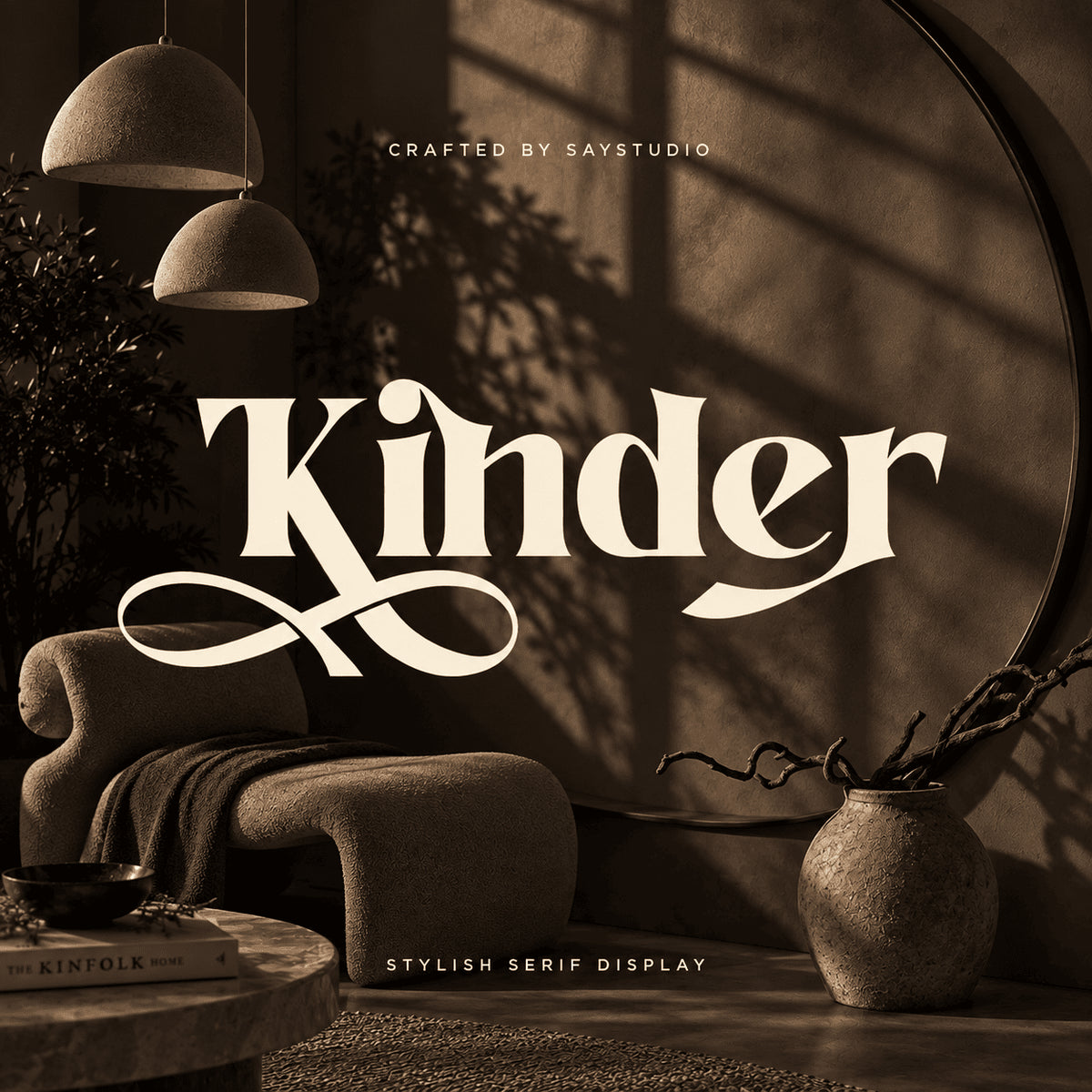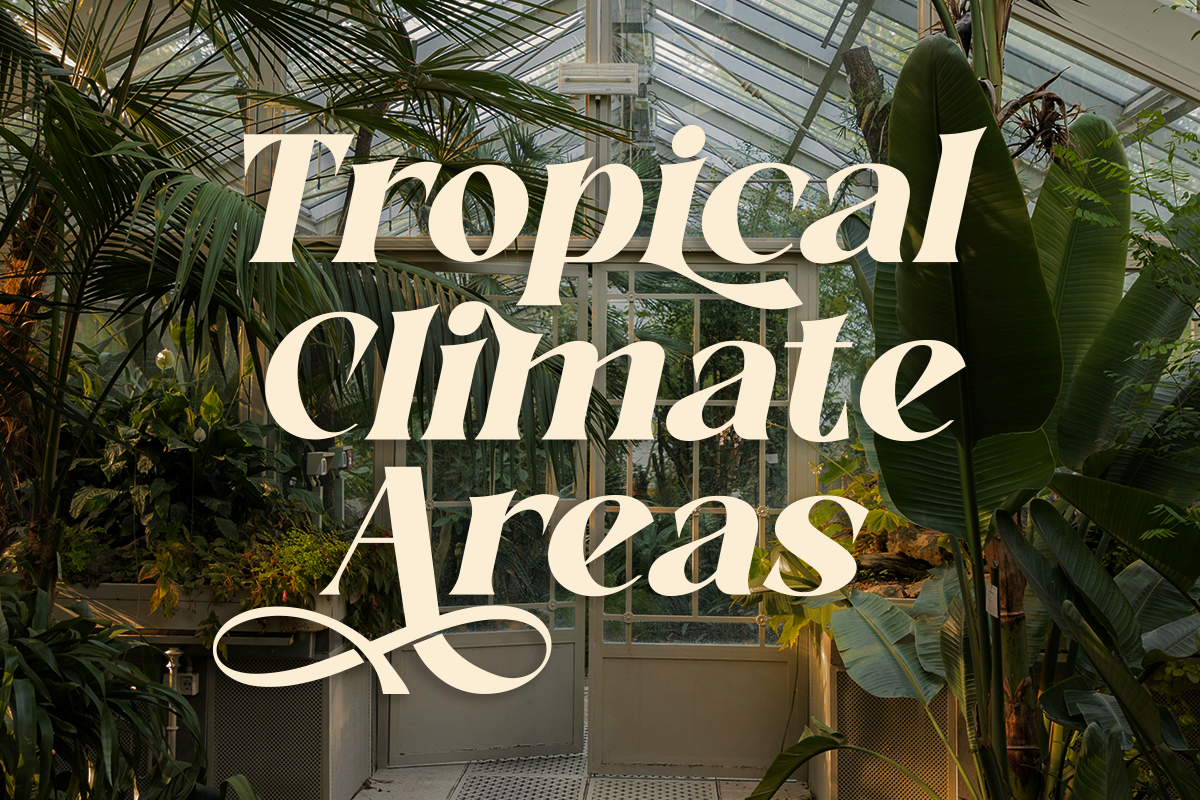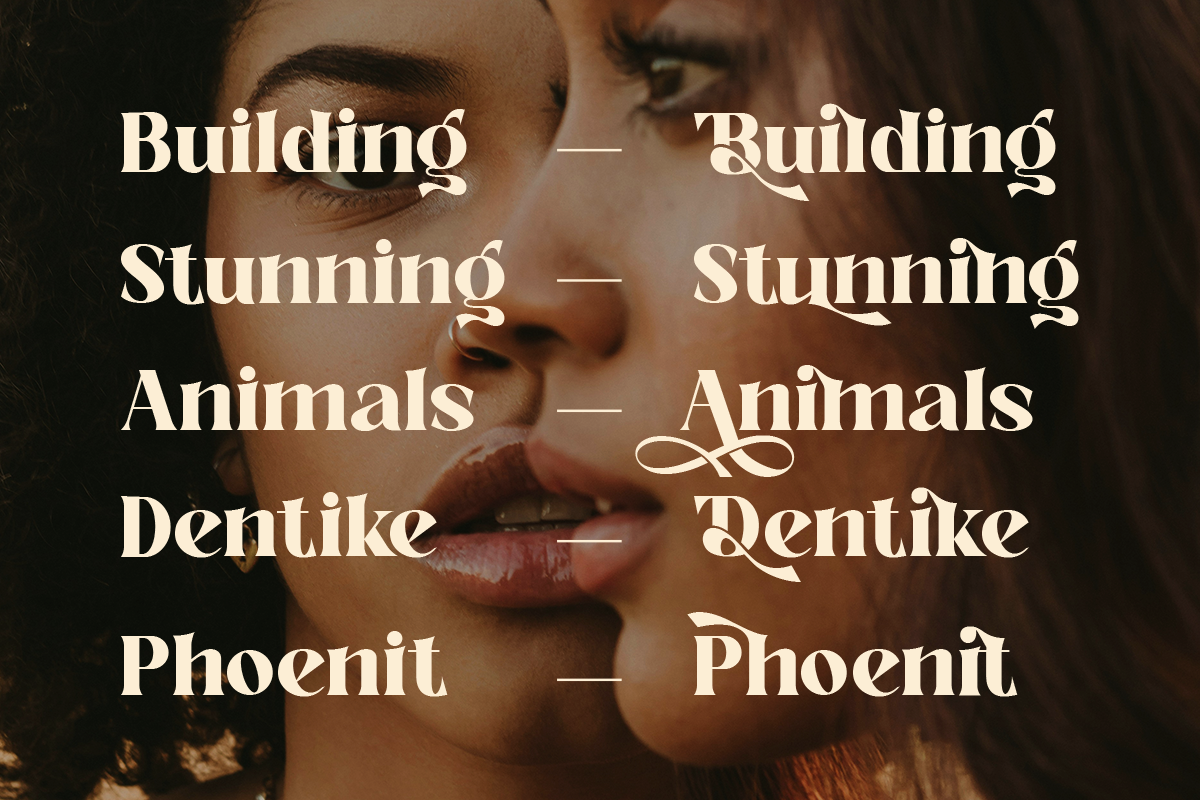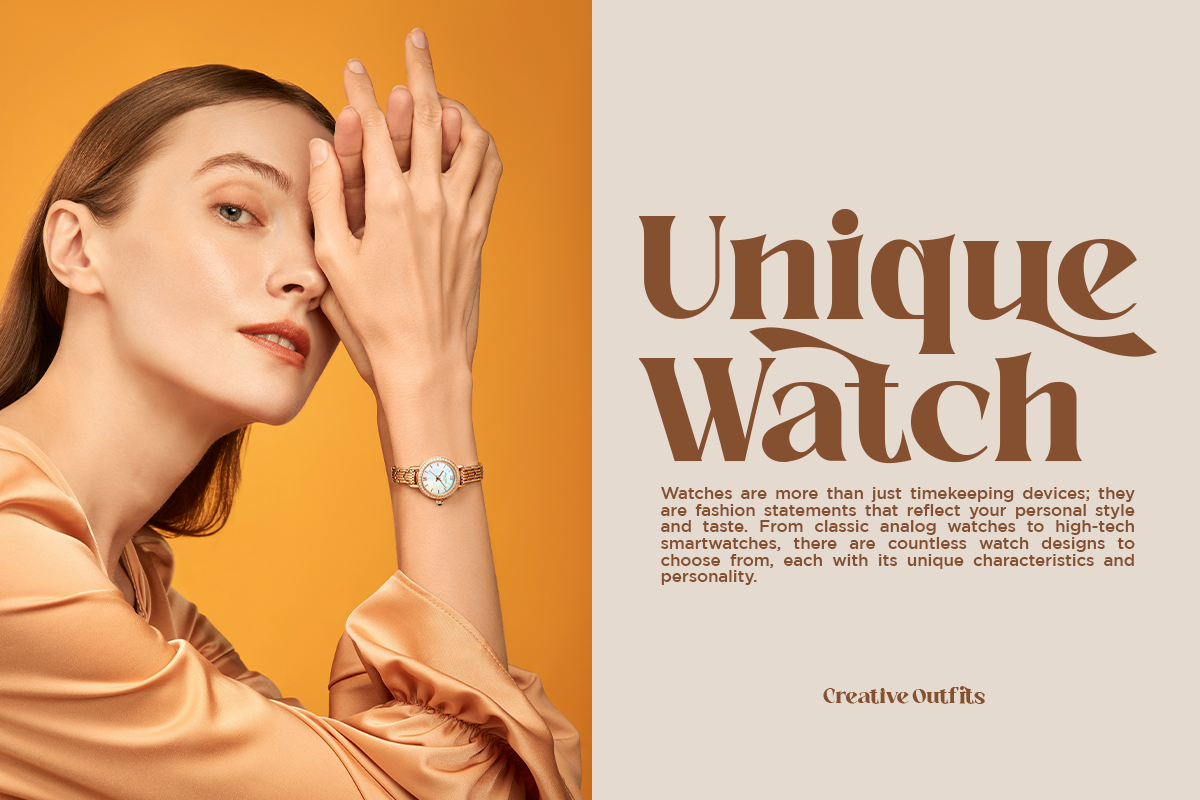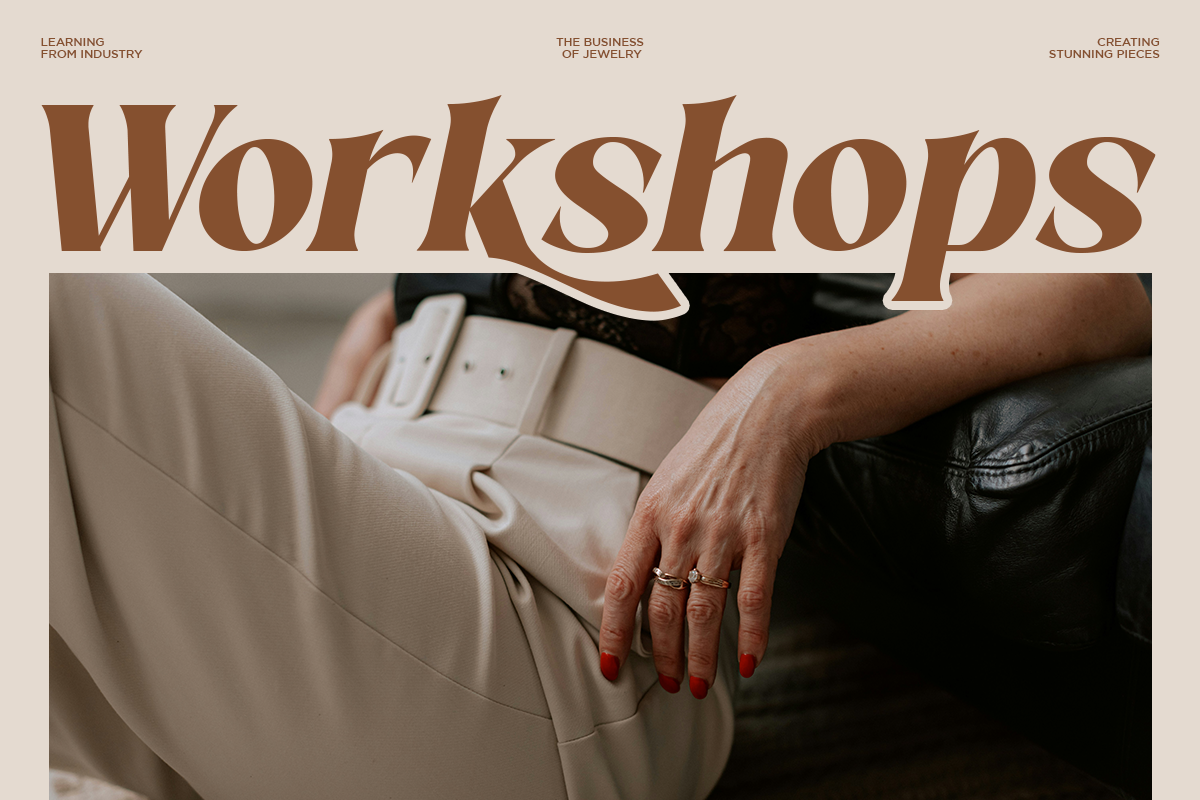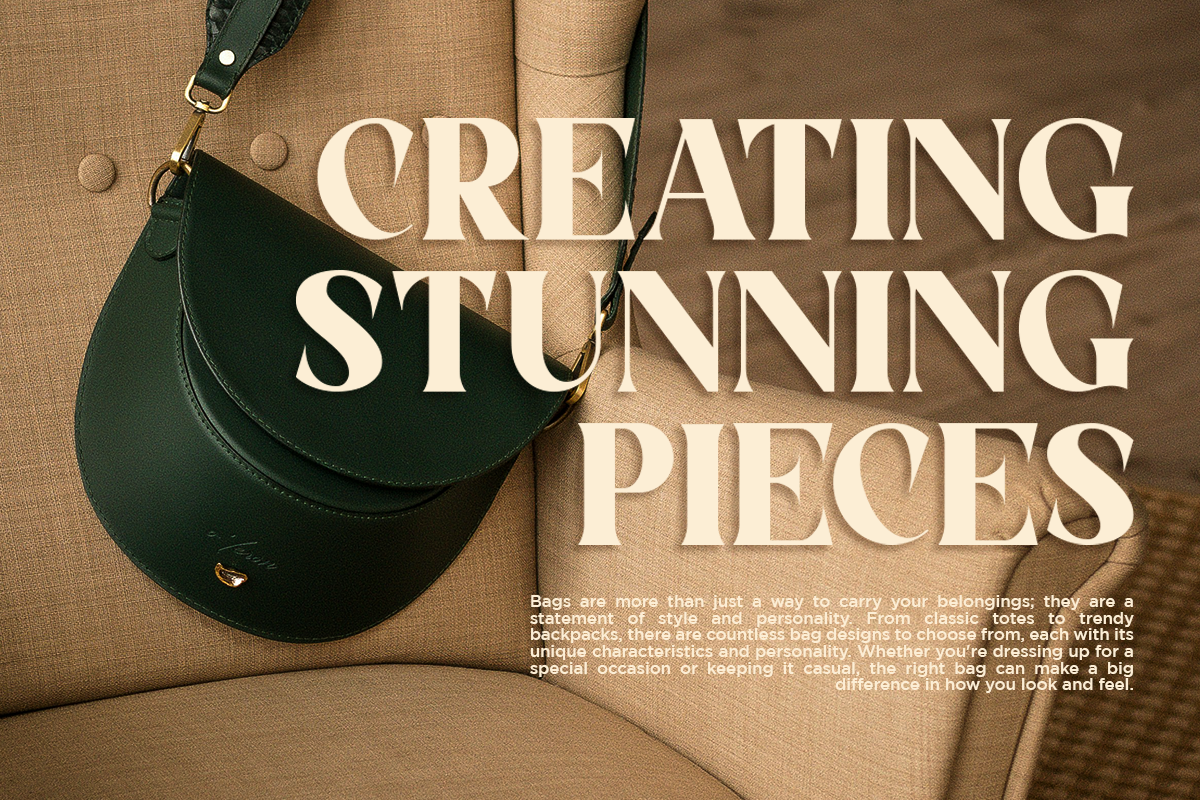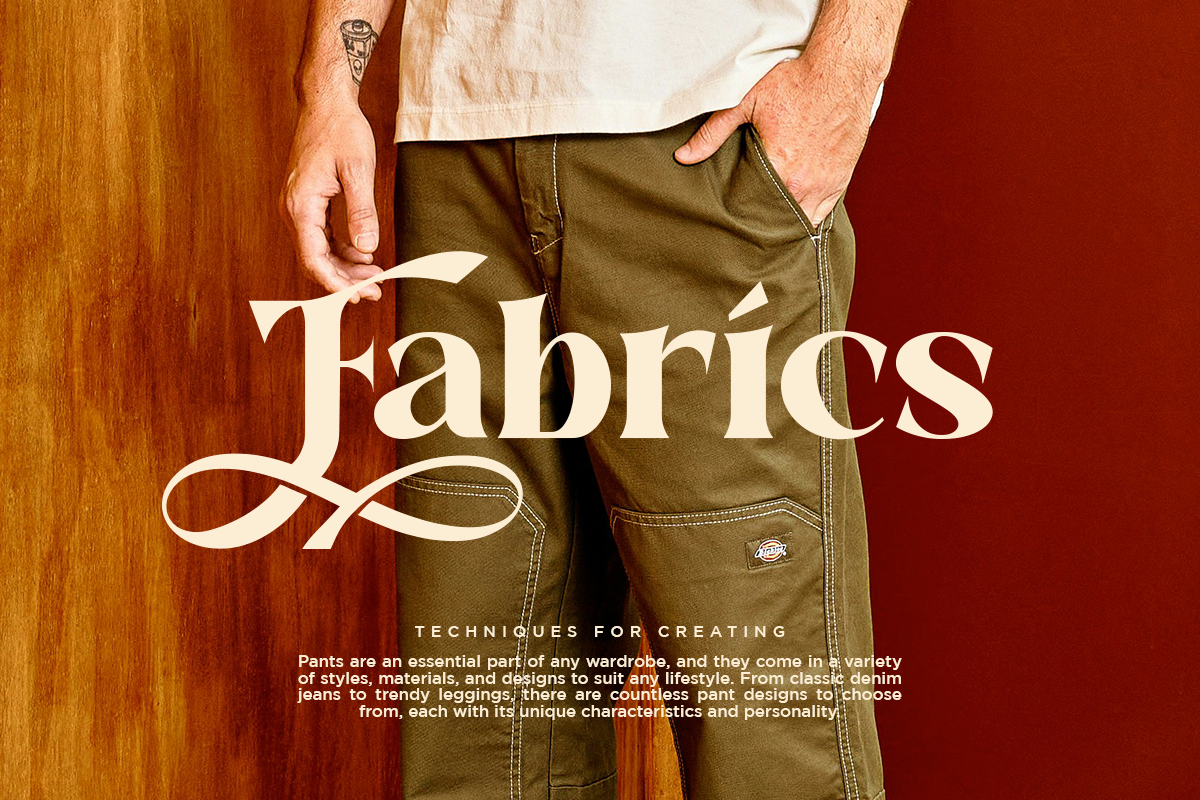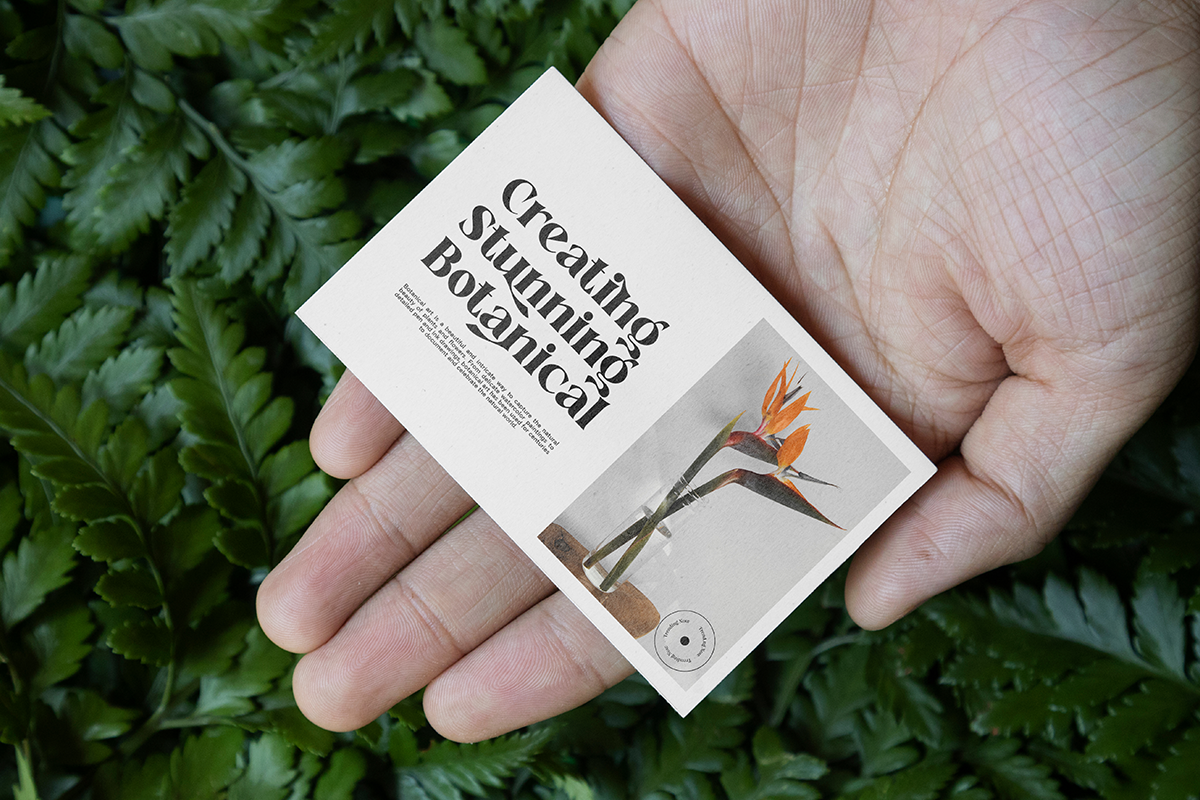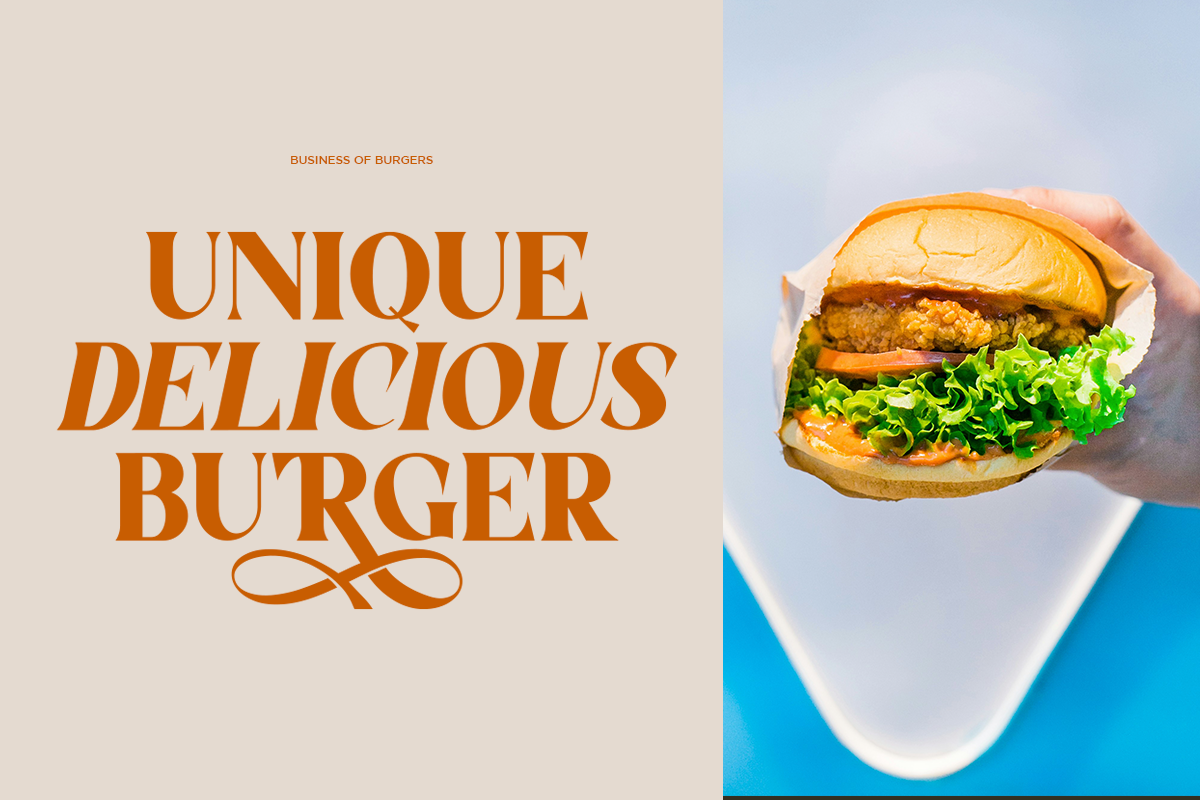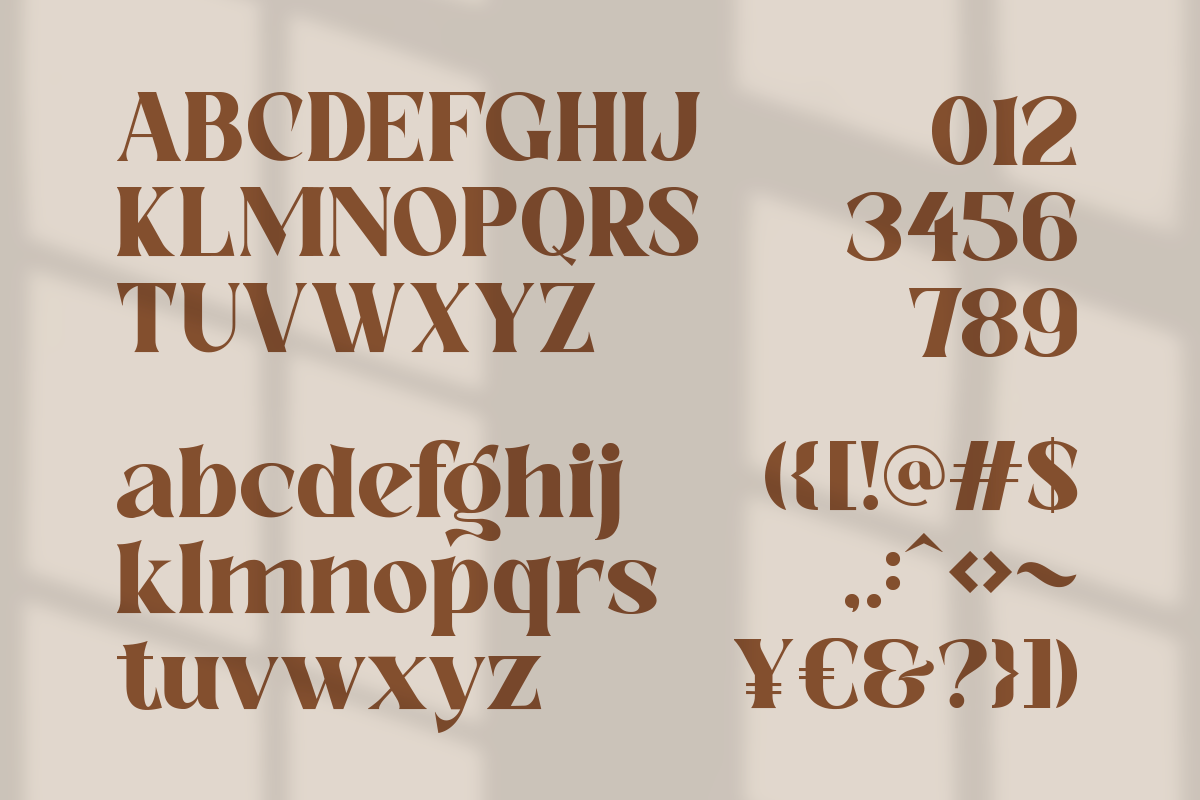
Kinder — Stylish Bold Serif Font
Kinder is a stylish bold serif typeface designed to make a confident statement with every headline. Combining strong serif structures with elegant curves and expressive details, Kinder creates a sophisticated yet contemporary look that feels both editorial and approachable. Its bold proportions give typography a powerful presence while maintaining the refined character of a modern display serif.
Perfect for fashion campaigns, editorial layouts, lifestyle branding, magazine covers, product packaging, restaurant identities, food branding, beauty projects, posters, advertising, and creative headlines, Kinder is designed to stand out in both minimal and visually rich compositions. Its distinctive forms make it especially effective for large-scale typography where personality and impact are essential.
From a fashion lookbook to a premium packaging concept, a creative workshop poster, or a bold restaurant identity, Kinder brings a polished and memorable visual voice to your designs. Its versatile character allows it to move effortlessly between elegant, modern, artistic, and contemporary aesthetics, making it a strong choice for designers looking for a statement serif with plenty of personality.
Special Alternates
Stylistic Ligatures
Kinder is a bold serif typeface with Regular and Italic styles, special alternates, stylistic ligatures, uppercase and lowercase characters, numbers, symbols, punctuation, and multilingual support. It is available in OTF, TTF, and WOFF formats.